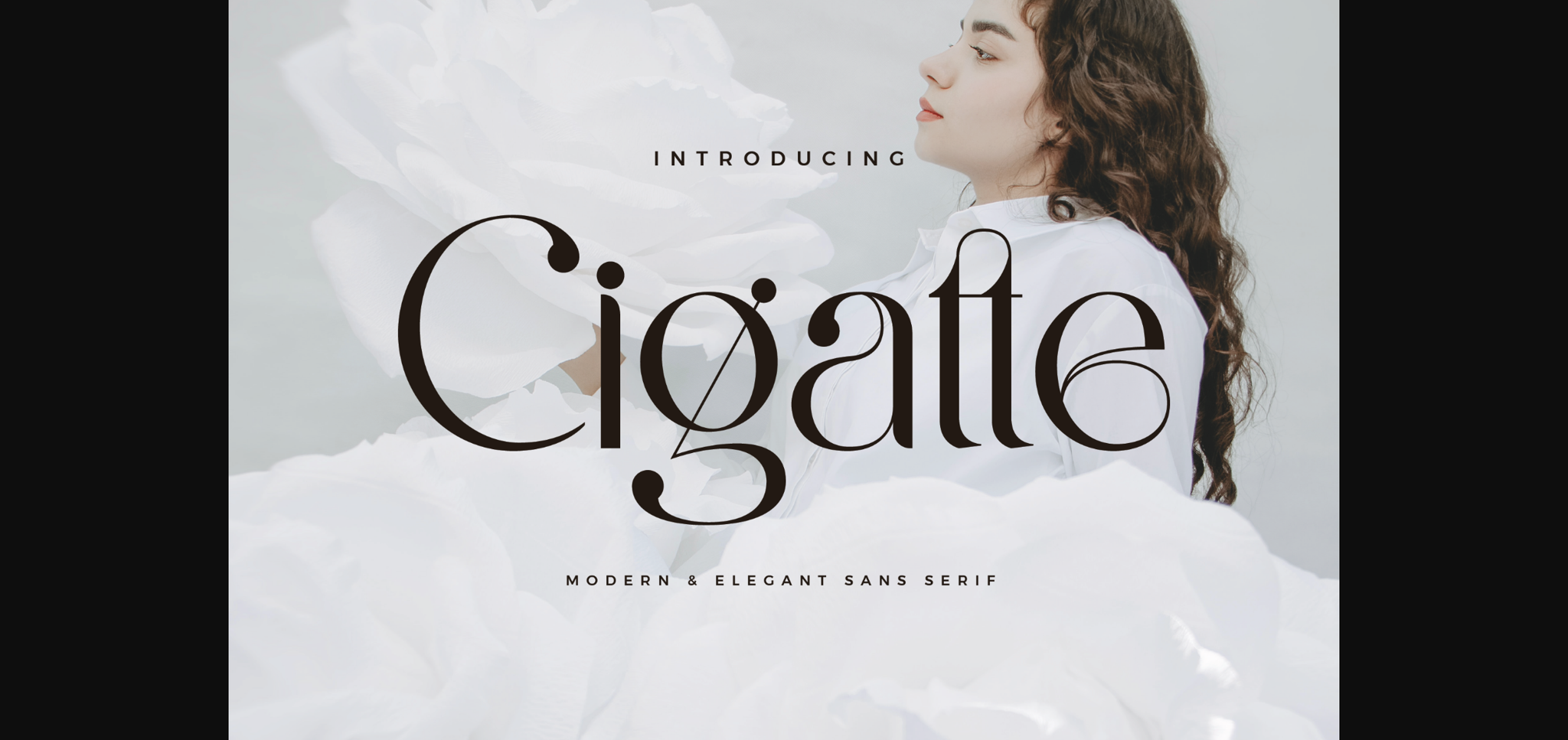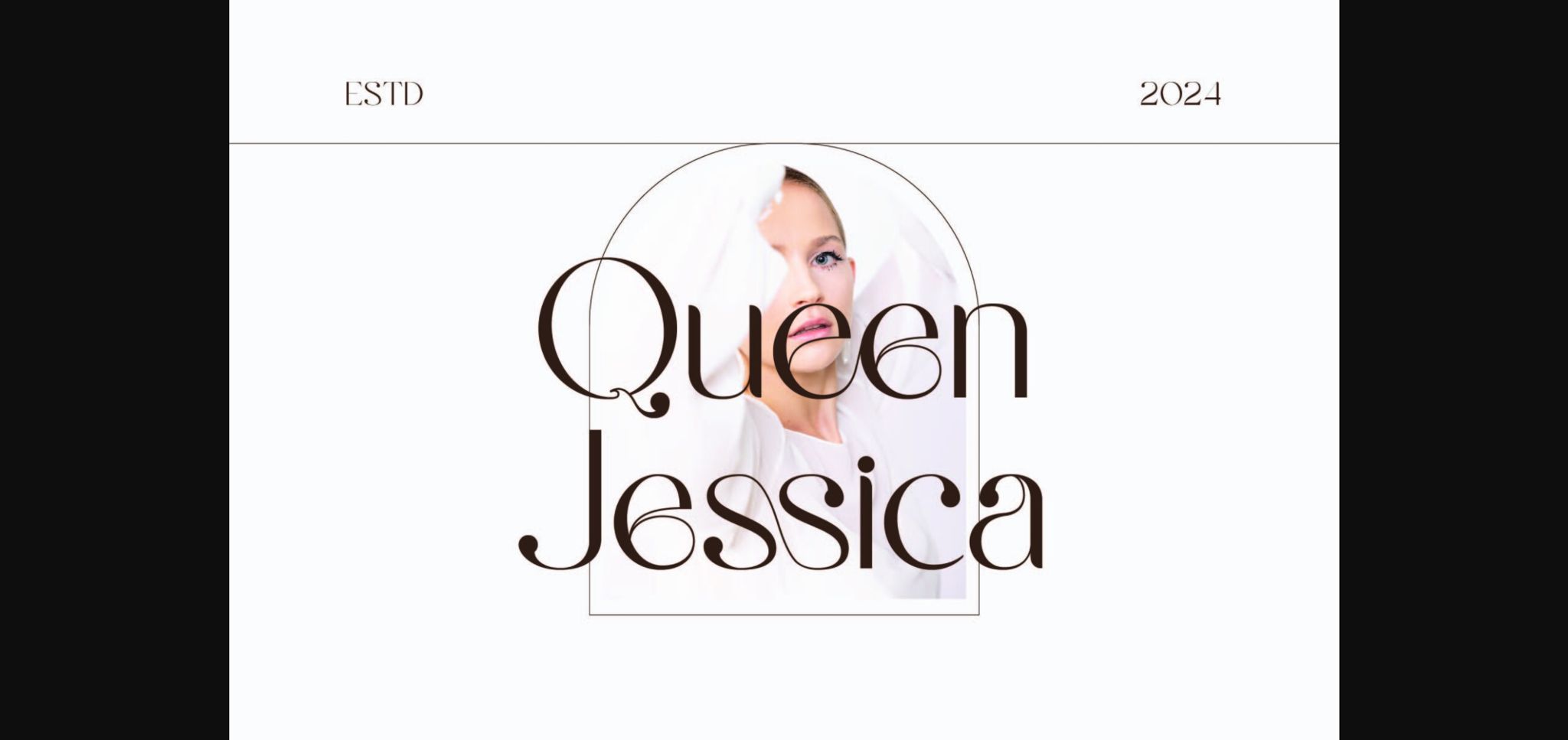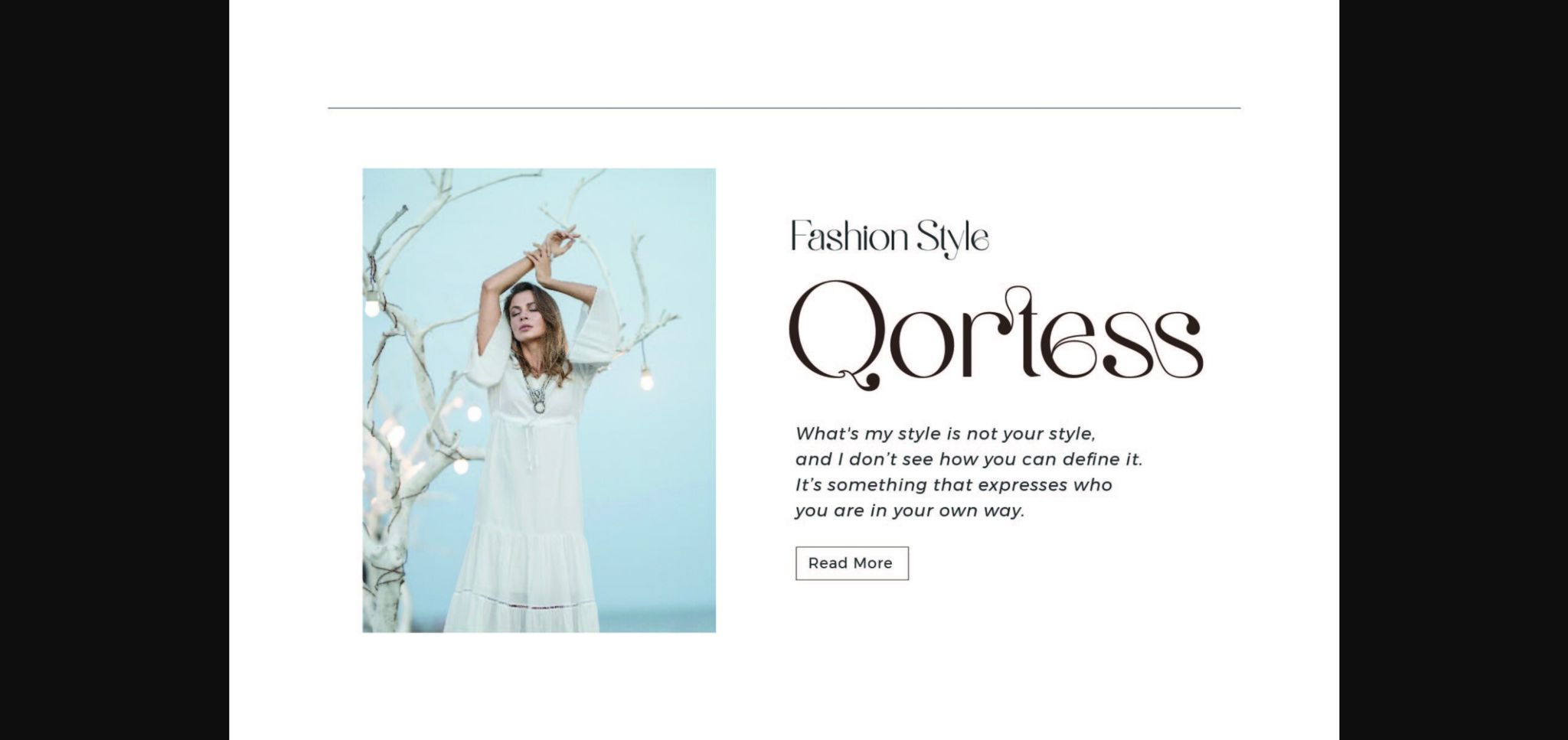
About Cigatte Font
Cigatte is a chic sans-serif font that effortlessly blends modernity with sophistication. Its clean lines and subtle curves create a sleek aesthetic, while the stylish letterforms exude a sense of timeless elegance. Perfect for conveying a contemporary yet refined vibe in your design projects.